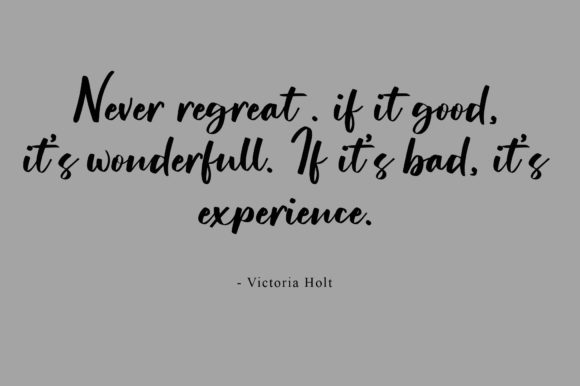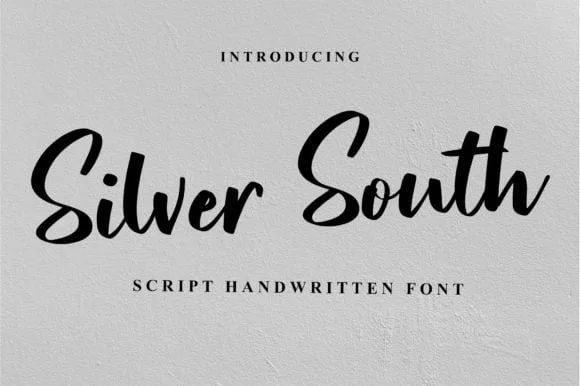
Silver South Font
Silver South Font is a classy, contemporary pair of script and serif fonts. With a stylish didot-style serif font and a free-flowing, expressive script companion, Silver…
Silver South Font is a classy, contemporary pair of script and serif fonts. With a stylish didot-style serif font and a free-flowing, expressive script companion, Silver South offers beautiful typographic harmony for a diversity of design projects, including logos & branding, wedding designs, social media posts, advertisements & product designs.
Where Silver South Font works best
Silver South Font brings a personal, handwritten warmth to invitations, menus and place cards.
Craft brands — coffee, cosmetics, bakery — use scripts like Silver South Font for signature-style logos and labels.
Pair Silver South Font with a plain sans for quotes, stories and Pinterest pins that feel handmade.
What is Silver South Font good for?